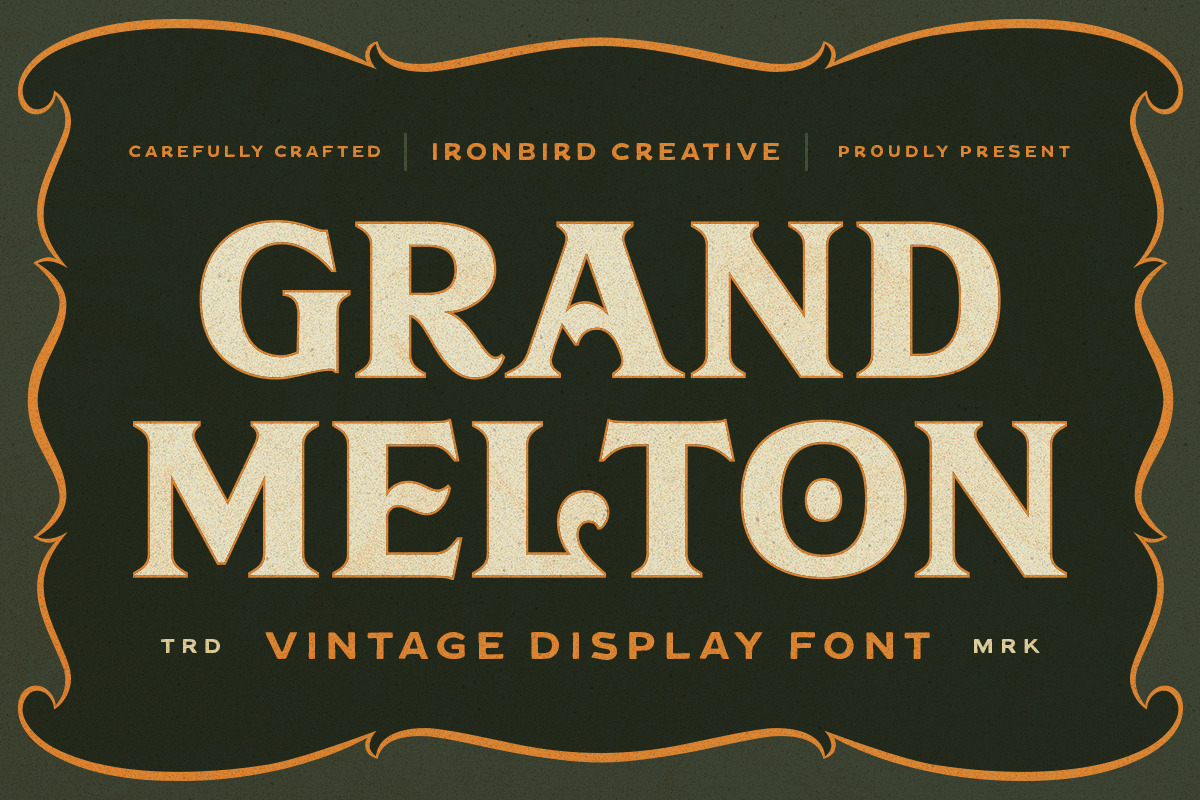
IC Grand Melton - Display Typeface
IC Grand Melton is a powerful display typeface inspired by vintage type with carefully crafted. This typefaces is perfect for people looking for vintage aesthetic. Suitable for any graphic designs such as branding materials, t-shirt, print, logo, poster, t-shirt, quotes .etc